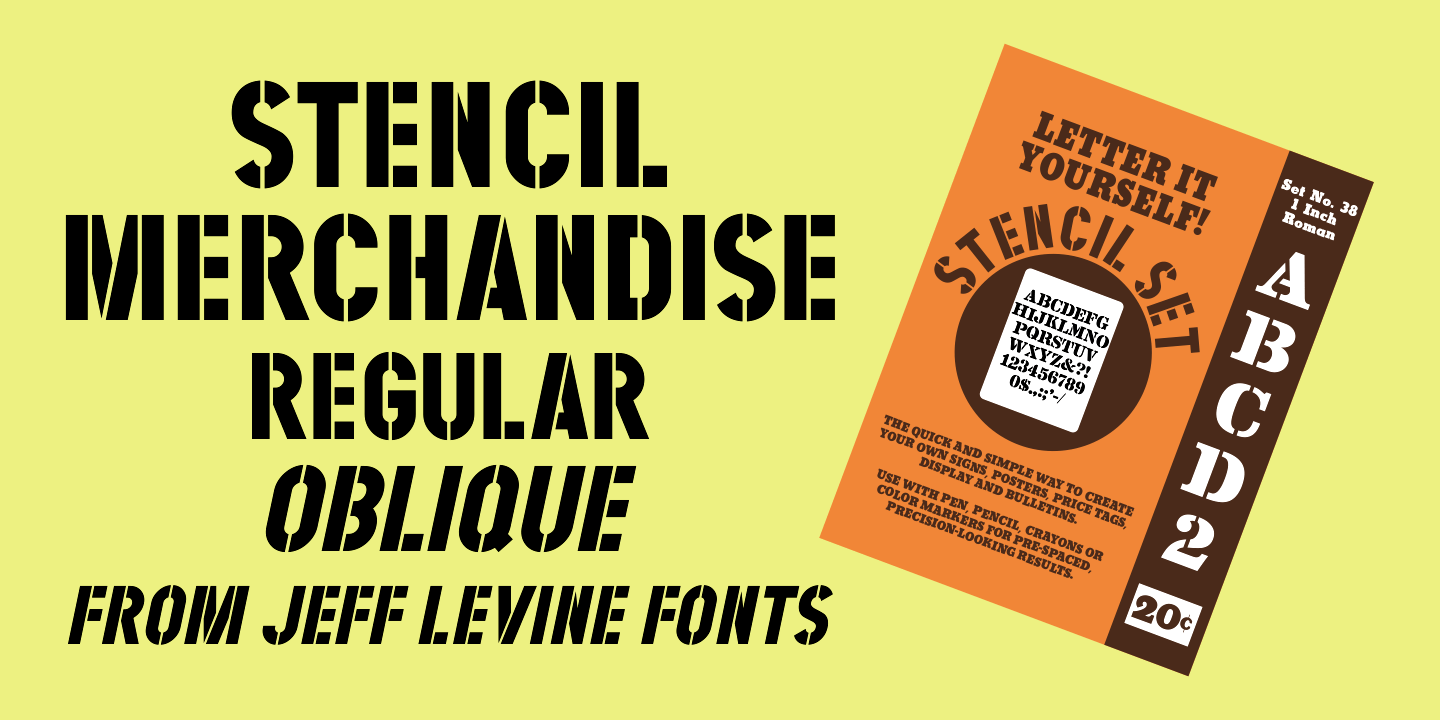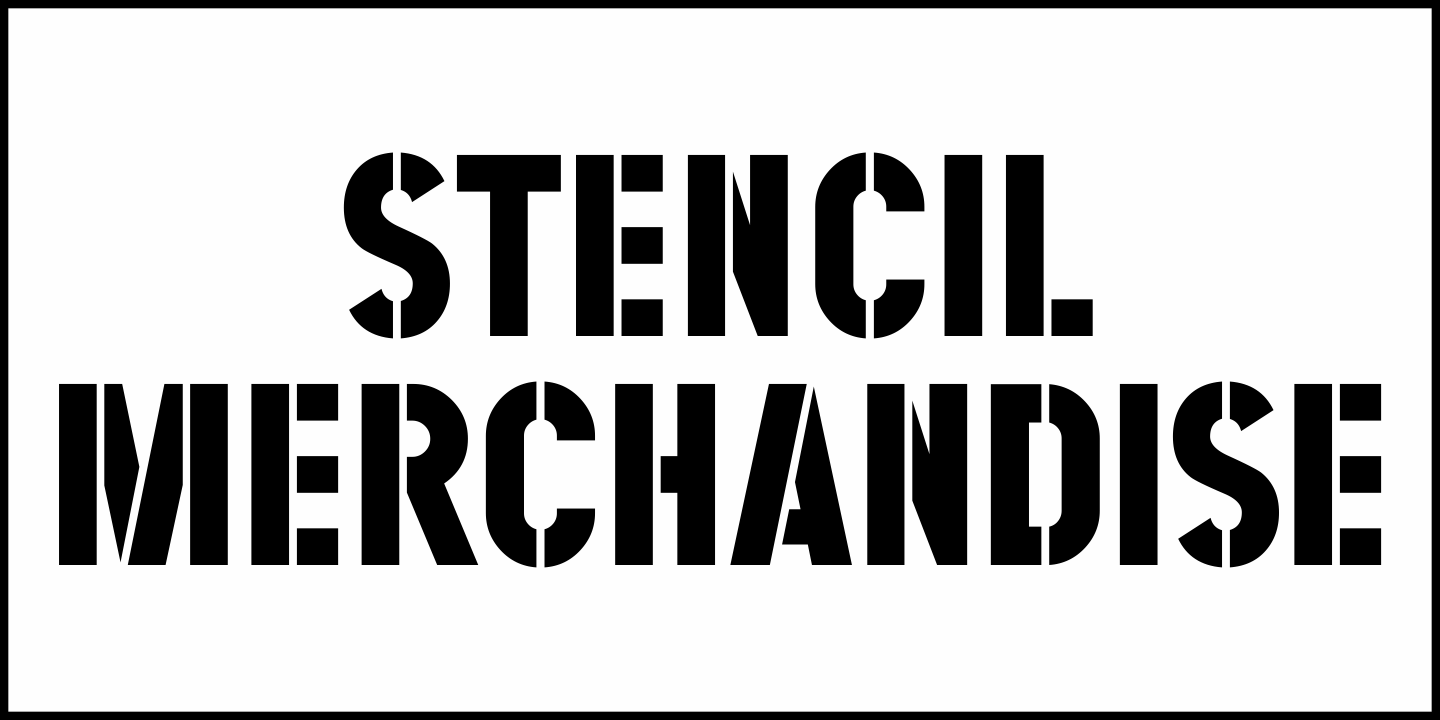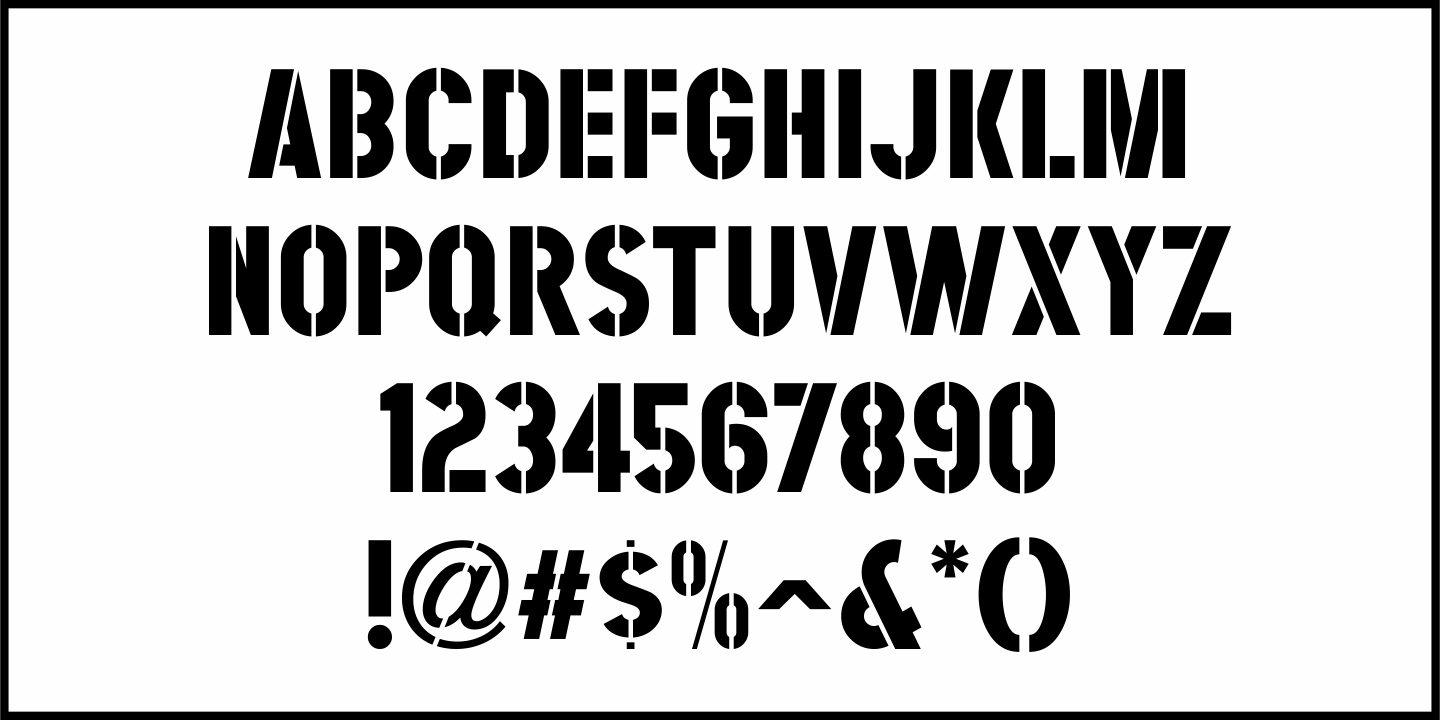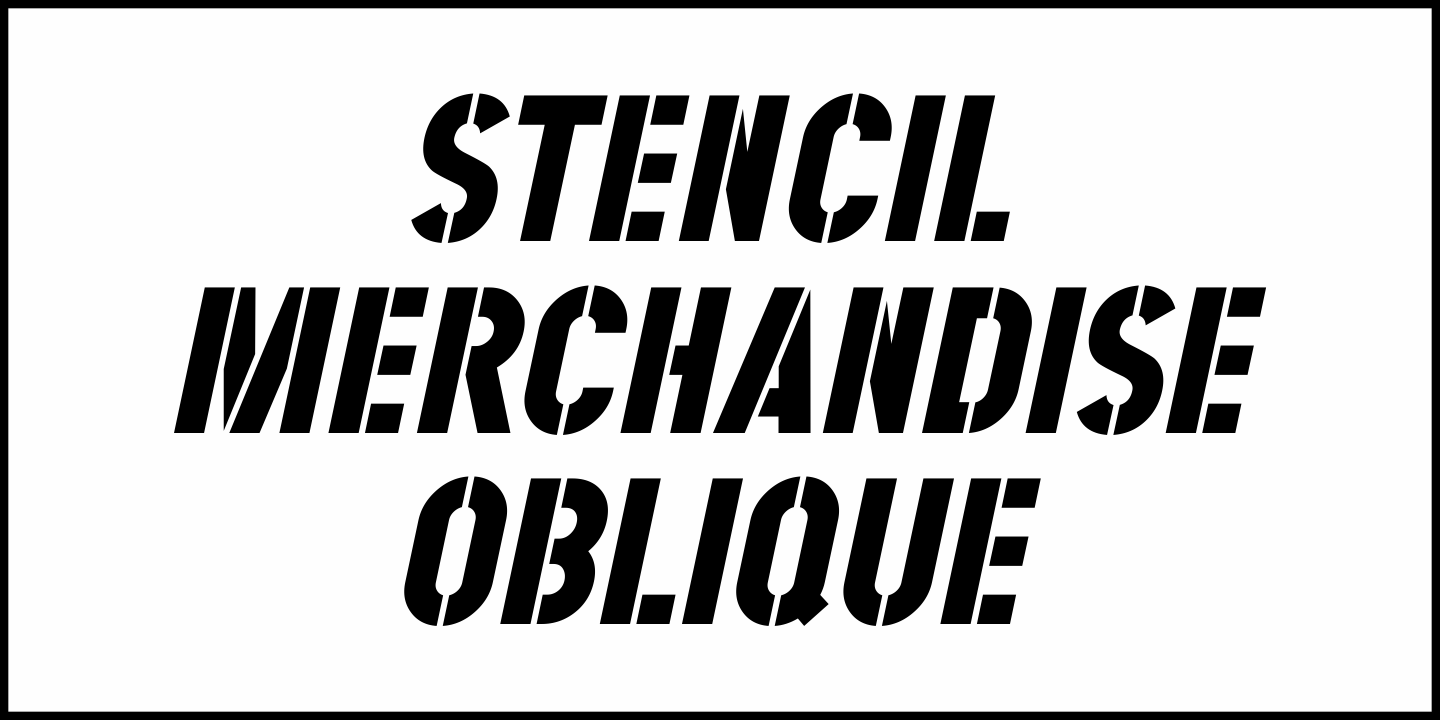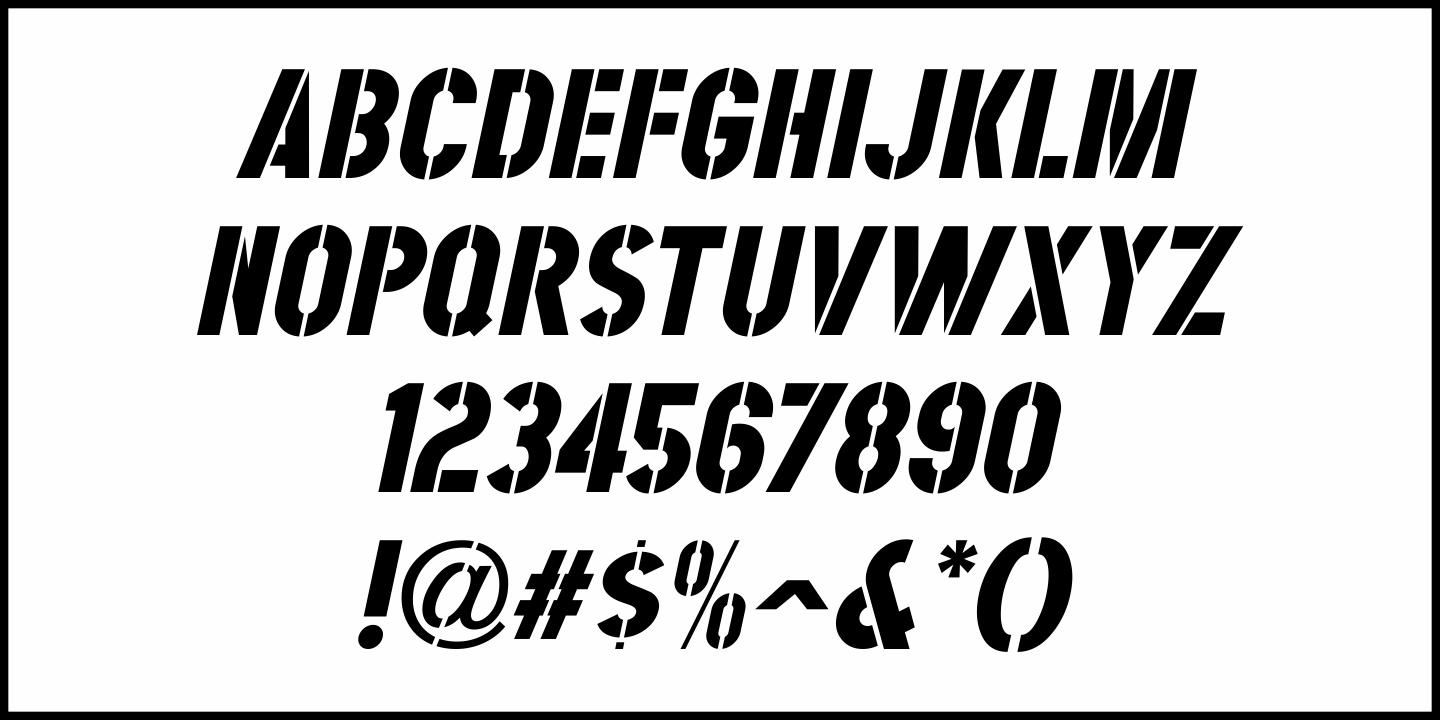
Stencil Merchandise
Inspired by hand lettering on the 1950s packaging for E-Z Letter stencils, Stencil Merchandise JNL is a bold sans serif stencil, and is available in both regular and oblique versions.